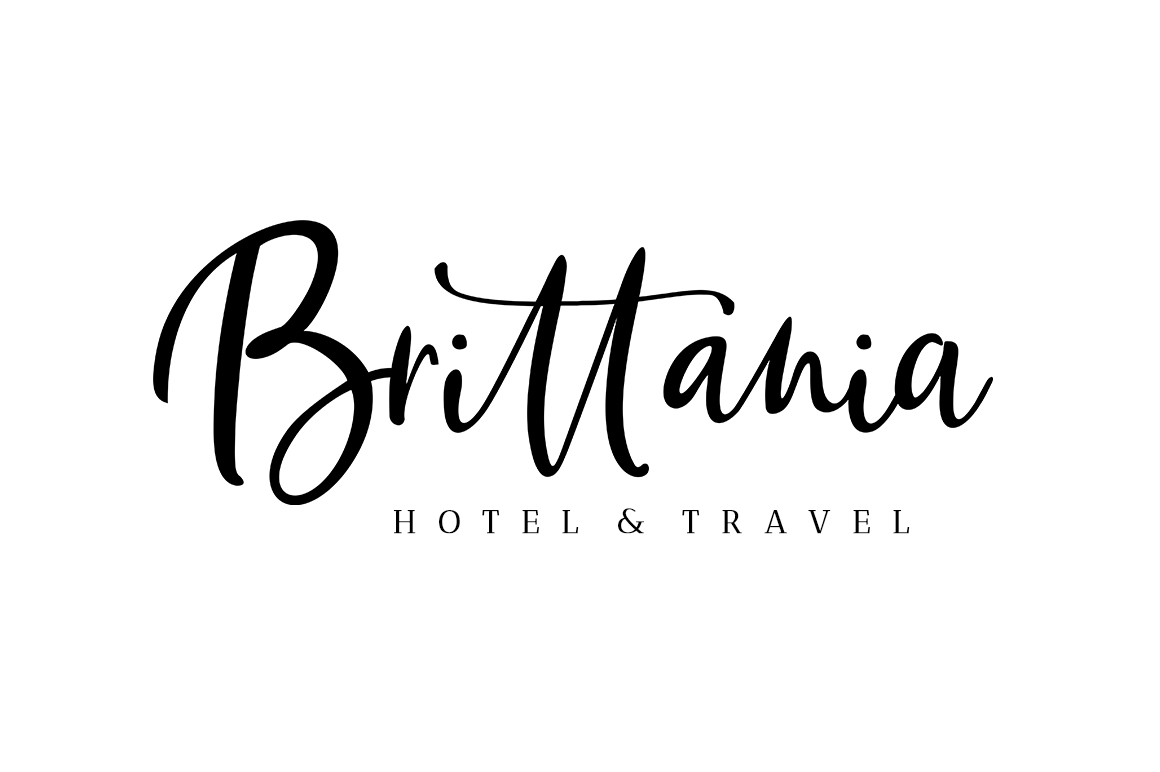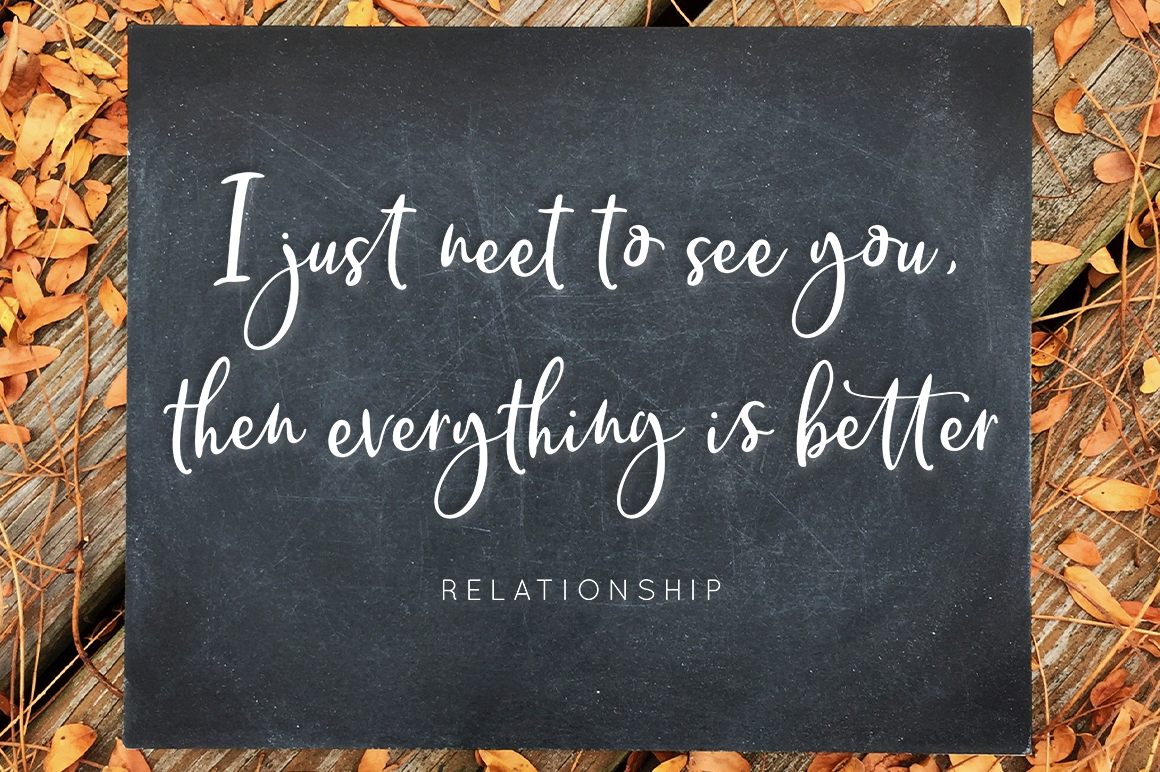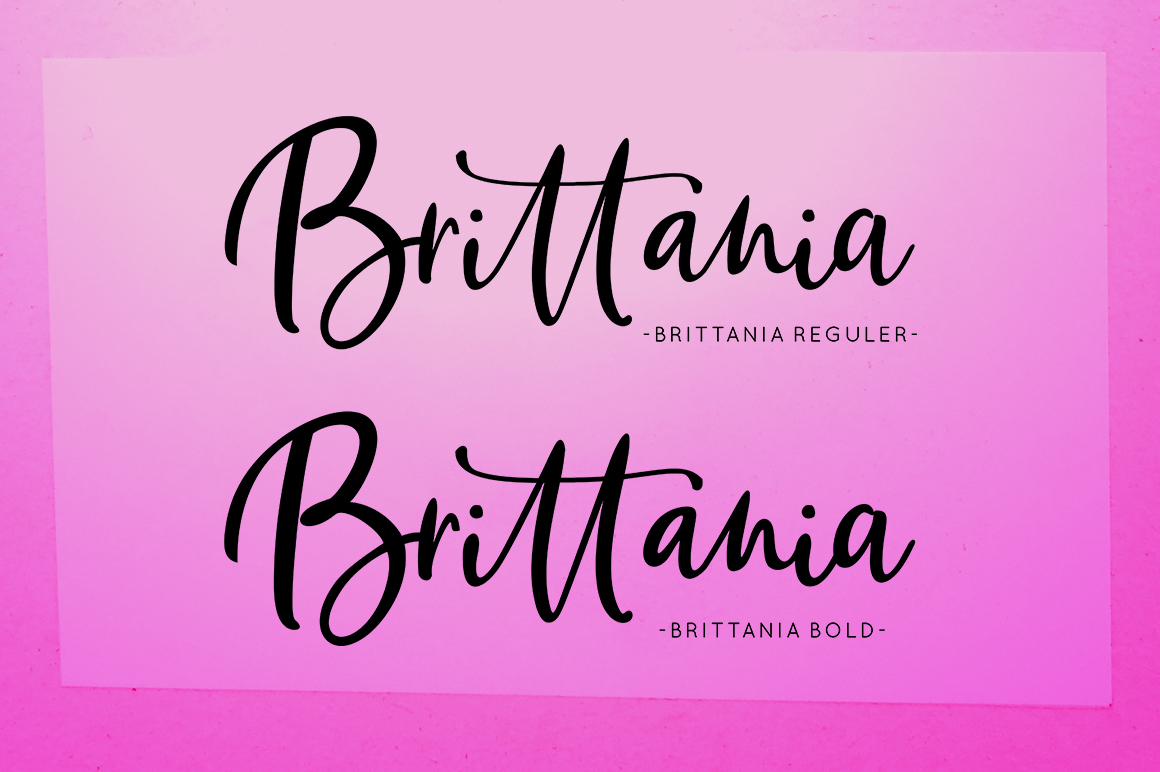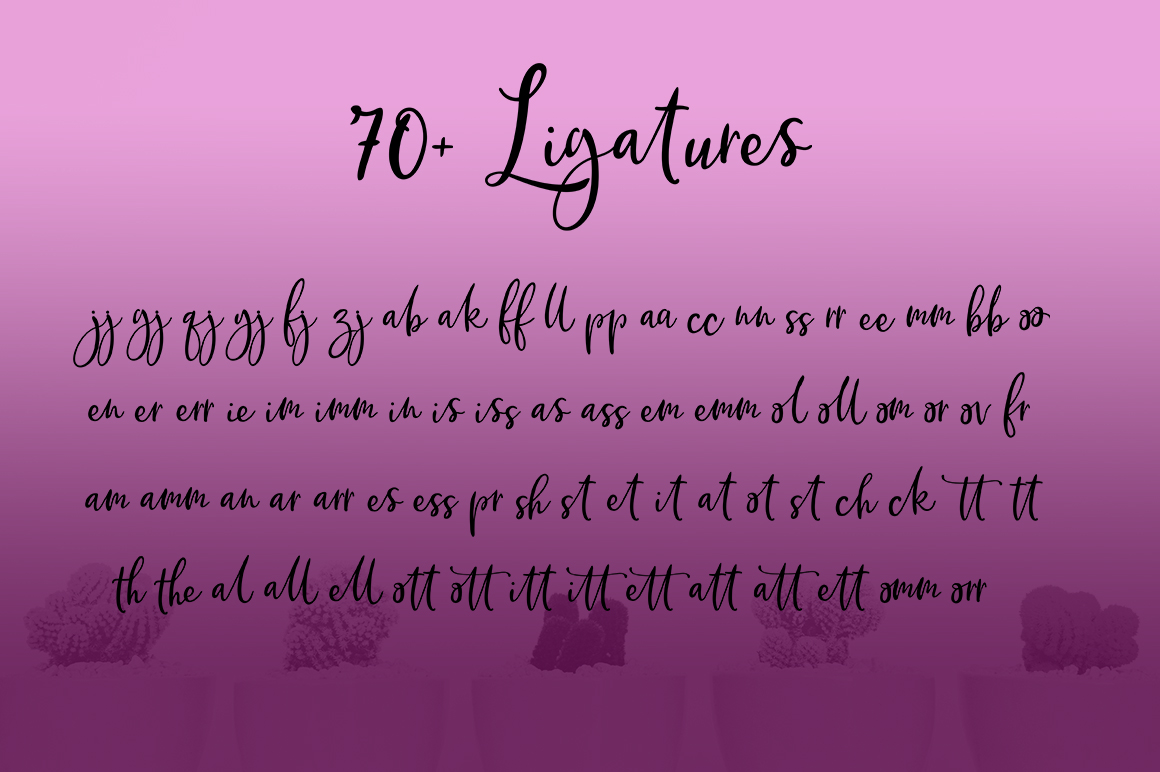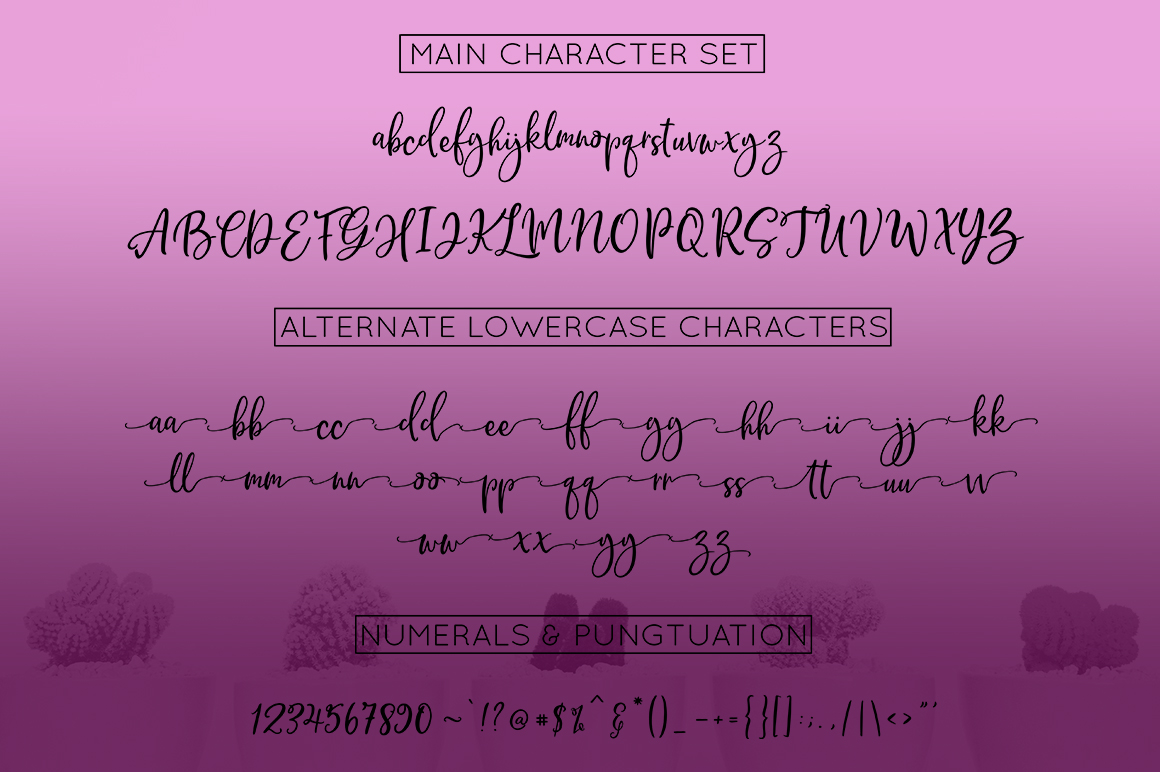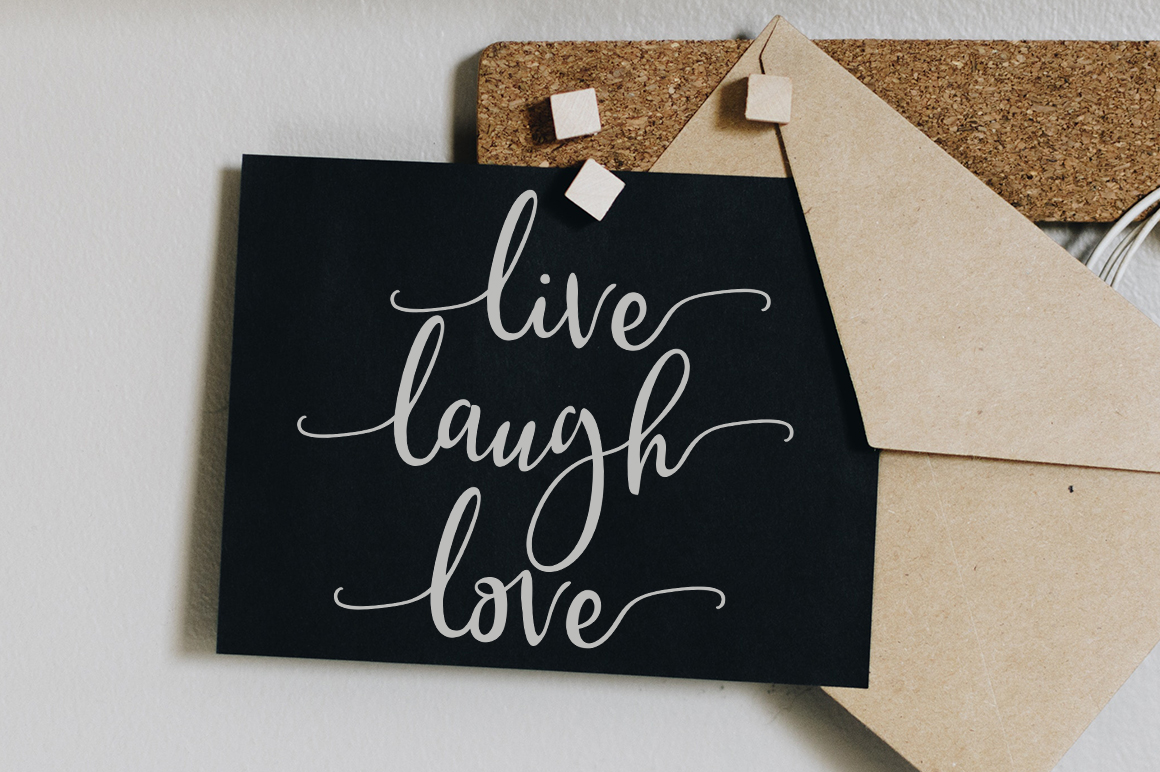
Brittania Script Font: Elevate Your Designs with Elegance and Sophistication
In the world of typography, a script font can make all the difference in adding a touch of elegance and sophistication to your designs. If you’re on the hunt for a font that exudes luxury and refinement, look no further than the Brittania Script Font. This gorgeous script font is perfect for creating stunning invitationals, headlines, and more, and is sure to make your designs stand out from the crowd.
What Sets Brittania Apart
So, what makes Brittania Script Font so special? For starters, its unique and intricate design is unlike any other script font on the market. With tons of unique characteristics and alternates, you can create an impactful and unique design edge that’s all your own. Whether you’re a designer, crafter, or DIY enthusiast, Brittania gives you the tools you need to take your projects to the next level.
Perfect for Invitationals and Headlines
Brittania Script Font is specifically designed with invitationals and headlines in mind. Its flowing script and elegant lines make it perfect for:
- Wedding invitations and announcements
- Event flyers and posters
- Social media graphics and quotes
With Brittania, you can add a touch of sophistication and glamour to any project, making it perfect for special occasions or everyday designs.
Key Features of Brittania Script Font
So, what can you expect from Brittania Script Font? Here are just a few of its key features:
- Unique and intricate design with tons of character alternates
- Perfect for invitationals, headlines, and more
- Elegant and sophisticated script font
- Easy to read and visually stunning
Tips for Using Brittania Script Font
To get the most out of Brittania Script Font, here are a few tips to keep in mind:
- Use it sparingly: Brittania is a statement font, so use it sparingly to make the most impact.
- Pair it with contrasting fonts: Pair Brittania with a contrasting font to create visual interest and hierarchy.
- Experiment with alternates: Take advantage of Brittania’s unique alternates to add variety and interest to your designs.
- Play with size and color: Experiment with different sizes and colors to make Brittania truly pop.
If you’re looking for a script font that will elevate your designs and add a touch of elegance and sophistication, look no further than Brittania Script Font. With its unique and intricate design, tons of character alternates, and versatility, Brittania is the perfect choice for designers, crafters, and DIY enthusiasts alike. So why wait? Download Brittania Script Font today and start creating stunning designs that will leave a lasting impression!